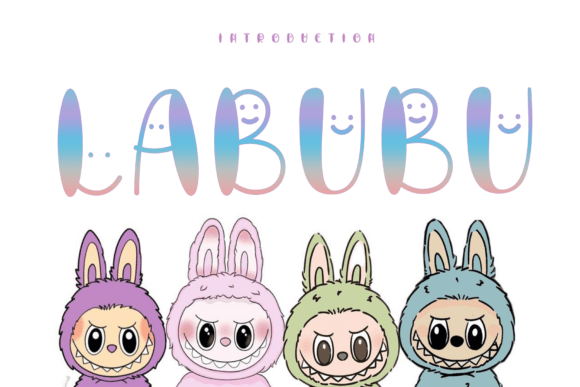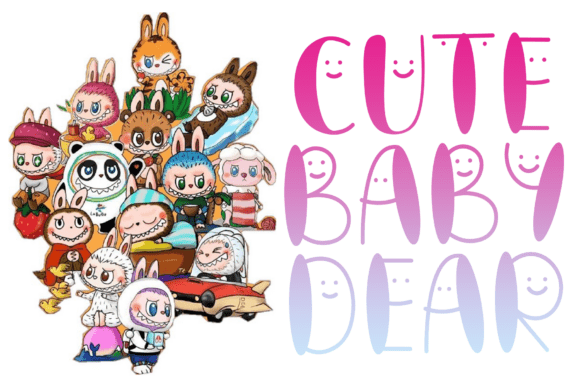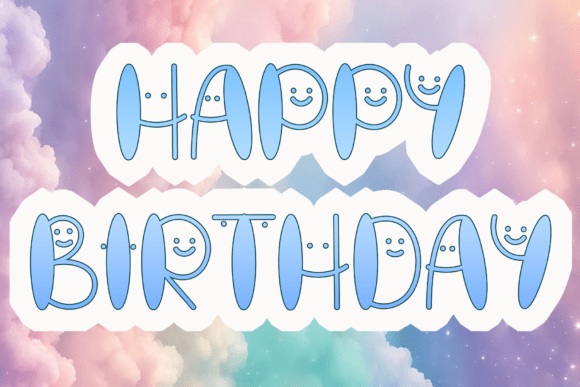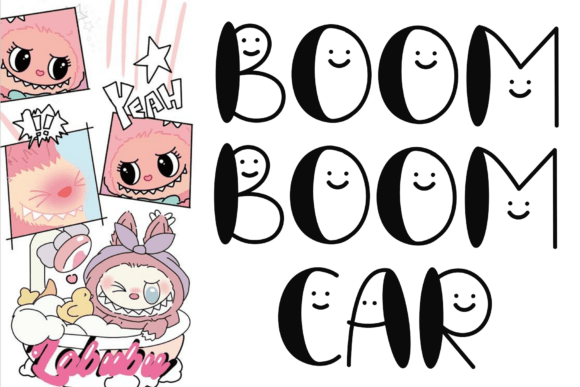
Labubu Font: A Cute Handwritten Display Font for Cricut & DIY Projects
About the Labubu Font
Get ready to be inspired by Labubu Font, a fresh and dynamic typeface for modern creators. Labubu is a sweet and friendly handwritten font. Fresh and casual, this font is ideal for writing wedding invitations, cards, or any other design that might need a lovely touch.
Its friendly, casual style makes Labubu perfect for projects needing a warm, approachable feel. Consider using it for branding materials for cafes, boutiques, or children’s products. It also excels in short-form text on packaging, social media graphics, and wedding stationery, adding a touch of handmade charm. Avoid using it for large blocks of body text or UI elements; its informal nature is less suitable for readability in extended passages.
Pair Labubu with a clean sans-serif like Montserrat for a modern contrast, or a classic serif like Garamond for a more traditional, balanced aesthetic. A playful script font, such as Pacifico, could also create a cohesive yet varied feel in certain applications.
Labubu’s overall personality is best described as cheerful and approachable, making it a versatile choice for projects that require a friendly and inviting tone.
Labubu Font Usage Examples
Labubu Font Example